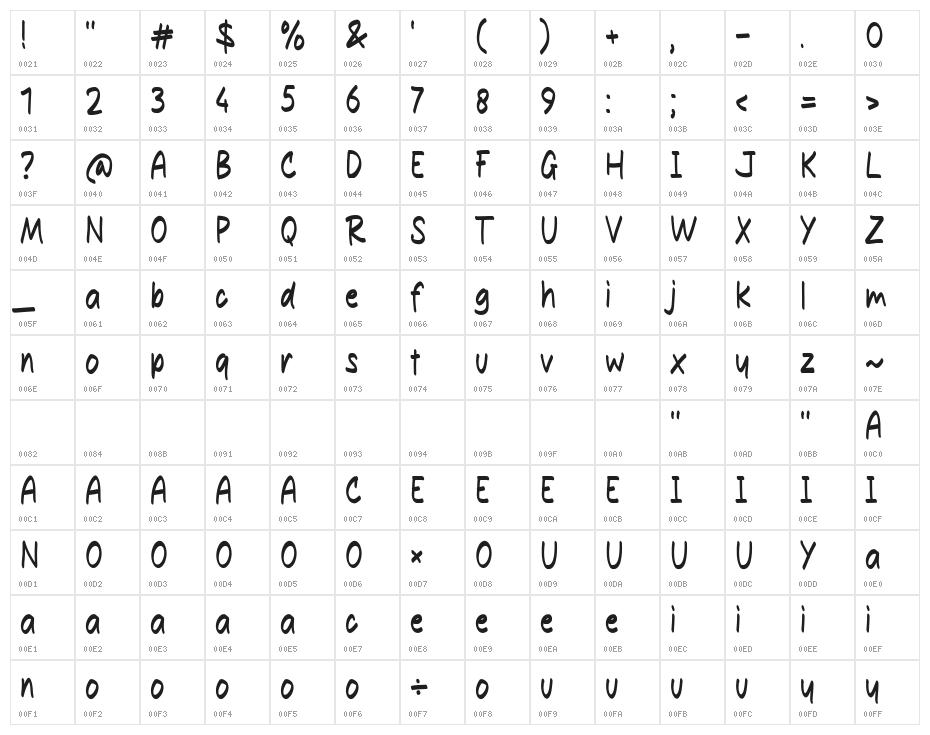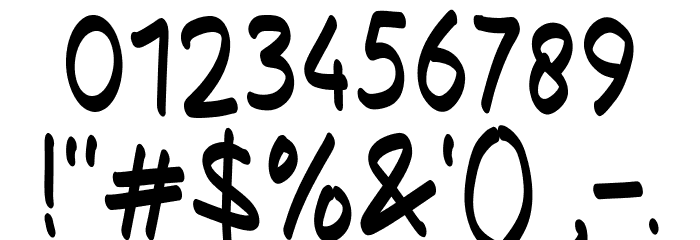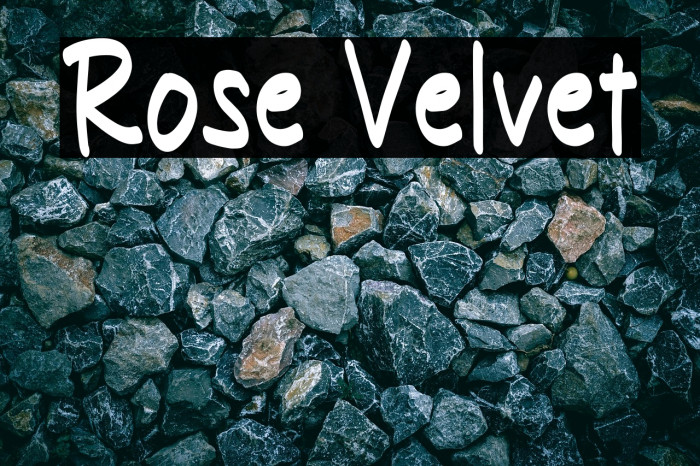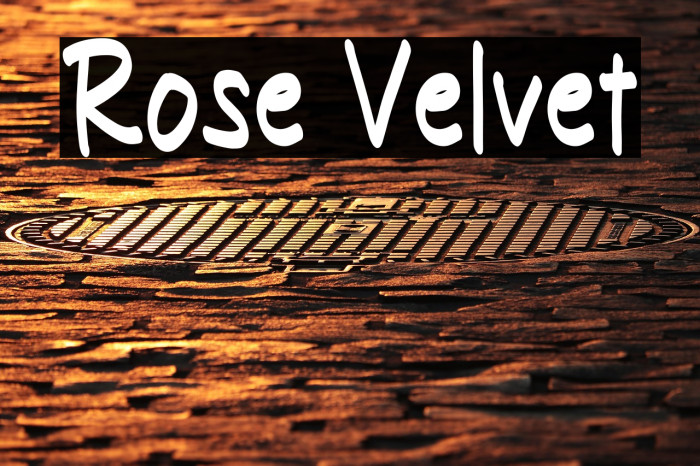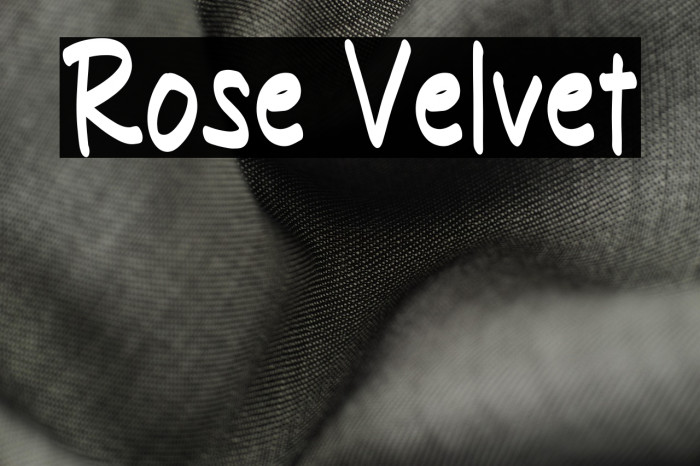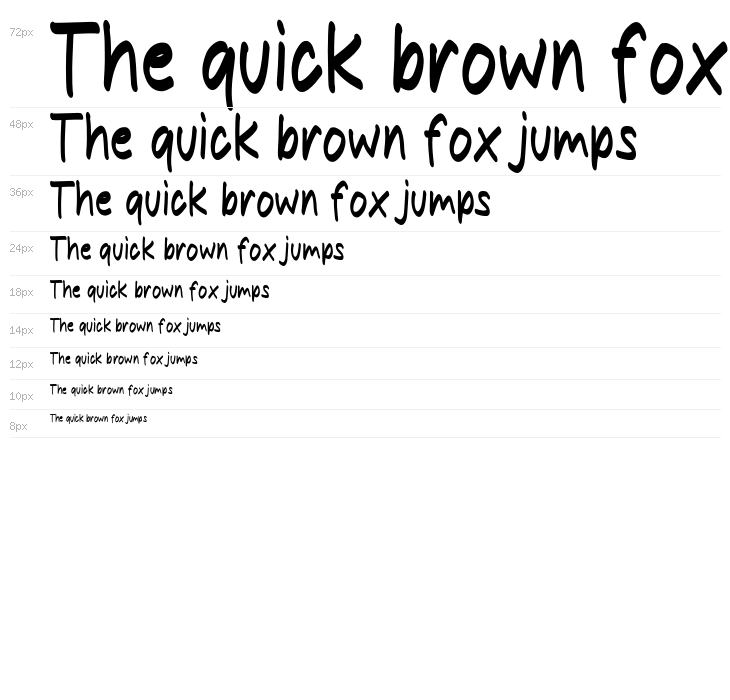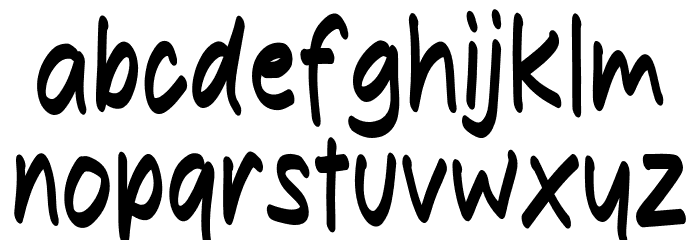
Rose Velvet Font
Rose Velvet Description
This font exhibits a playful and casual handwritten style, characterized by its rounded and slightly irregular letterforms. The strokes are bold and consistent, giving it a friendly and approachable appearance. The uppercase and lowercase letters maintain a uniform height, while the numerals and special characters blend seamlessly with the overall design. The font's informal nature makes it suitable for projects that aim to convey warmth and personality. Its legibility is enhanced by the clear distinction between each character, making it versatile for various applications.
| Overall Style | Casual, Playful |
| Use Case | Headlines, Informal text, Branding |
| Proposed Projects | Ideal for children's books, greeting cards, casual branding, and social media graphics. |